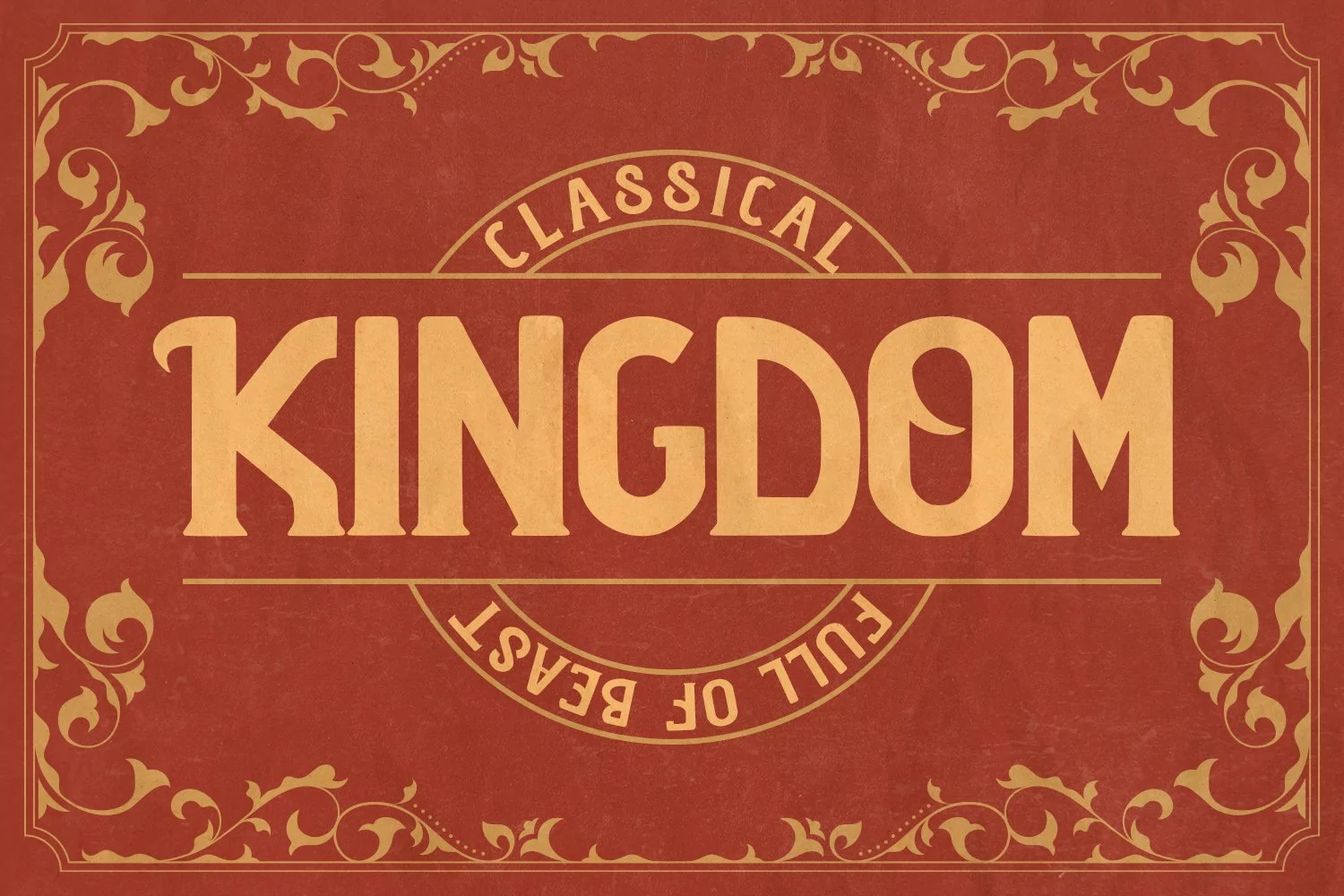
Heavy Cavalry - A Medieval Typeface Font that contain lowercase, uppercase, symbol, and also support multi language. There’s a lot ligatures in this font. This Font also comes with ligatures, alternates and many more. this font suitable for fashion, branding, catalog and other design what you want.